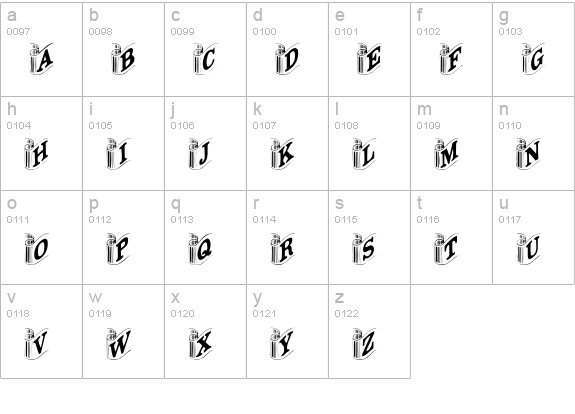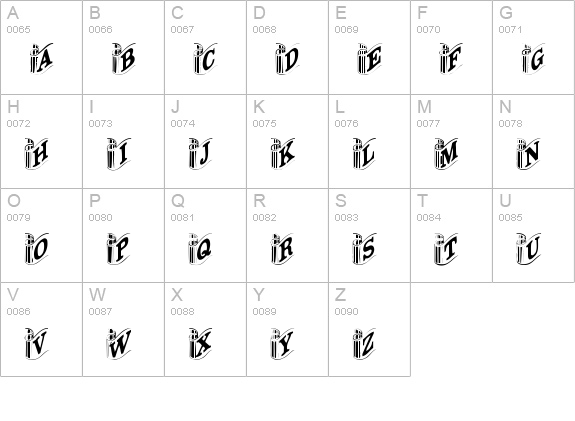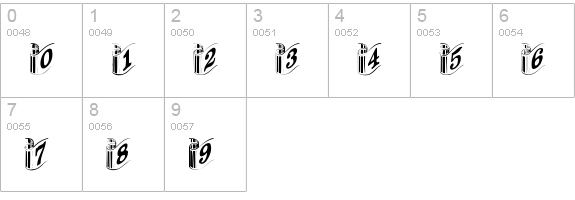
DavysRibbons Font Details
DavysRibbons font is a beautifully crafted typeface that exudes elegance and sophistication. With its delicate curves and graceful lines, this font is perfect for adding a touch of charm to your projects. Whether you are designing invitations, branding materials, or social media graphics, DavysRibbons font will elevate your work to new heights. The best part? DavysRibbons font is completely free to download at FontsMarket.com! Yes, you read that right - this stunning font is freely available for you to use in your personal and commercial projects. So why wait? Download DavysRibbons font today and start creating stunning designs that will leave a lasting impression.